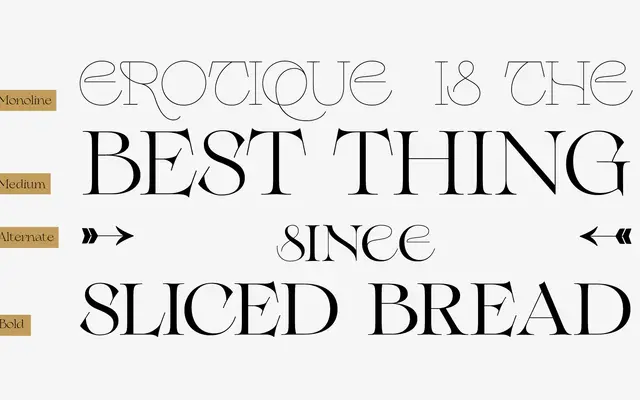
Erotique
Zetafonts · Cosimo Lorenzo Pancini, Maria Chiara Fantini, Solenn Bordeau, Andrea Tartarelli · 2020
A high-contrast display serif from Zetafonts that fuses oldstyle letterforms with calligraphic distortions and an extensive set of alternate glyphs for editorial and branding work.
Designed by Cosimo Lorenzo Pancini and Maria Chiara Fantini, Erotique builds on Zetafonts' earlier Lovelace, pushing its romantic curves toward something sharper and more unsettling. Four weights from Monoline to Bold are available in both standard and Alternate cuts, with a companion sans, a text variant and two ornament packs rounding out the family. Over 500 glyphs per style cover 190 languages in extended Latin, with OpenType features including stylistic alternates across nine sets, swash forms and discretionary ligatures.
A high-contrast oldstyle-influenced serif designed expressly for display use, with calligraphic distortions and quirky alternate letterforms that push it firmly into the display category rather than conventional text serif.